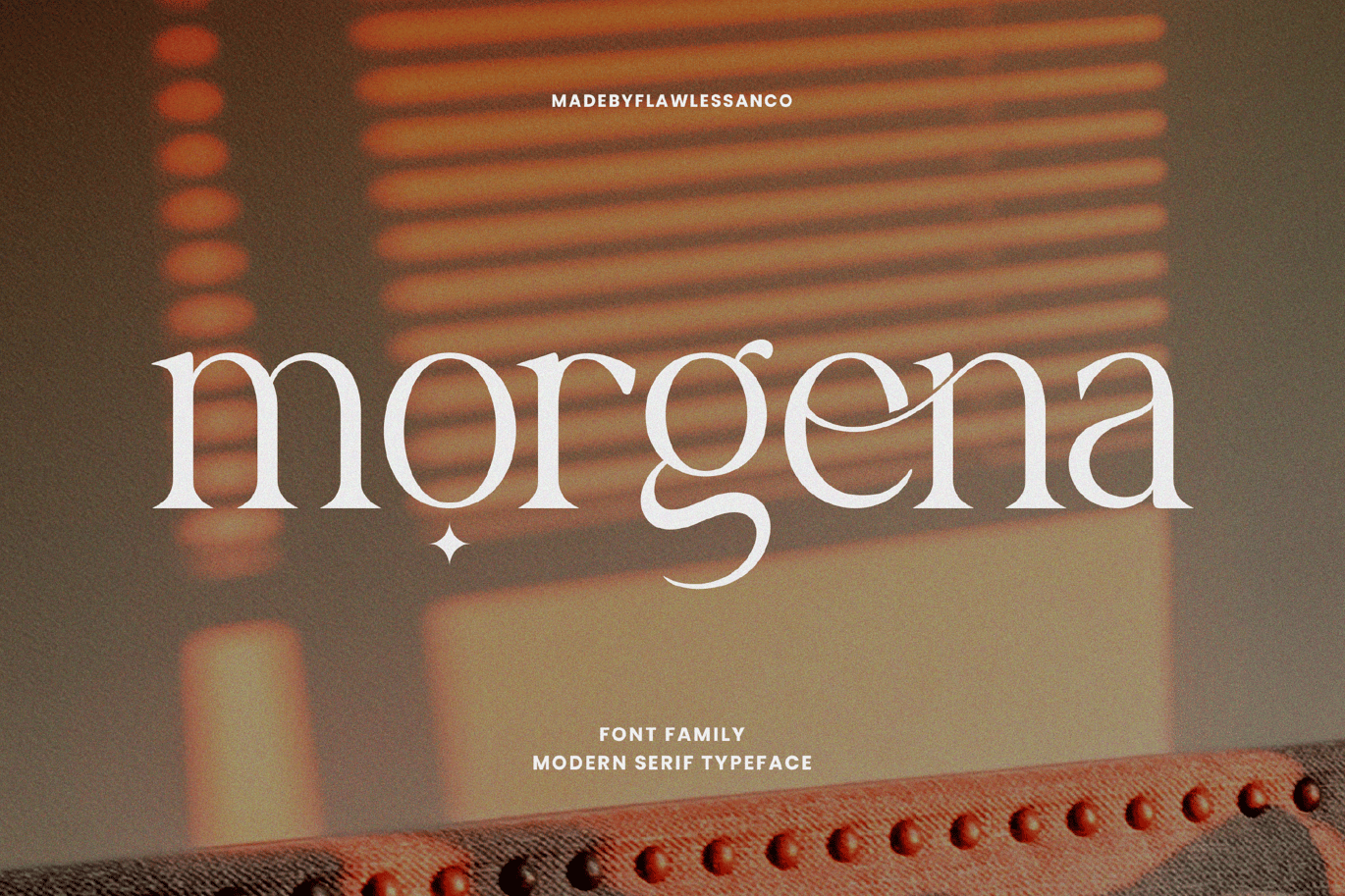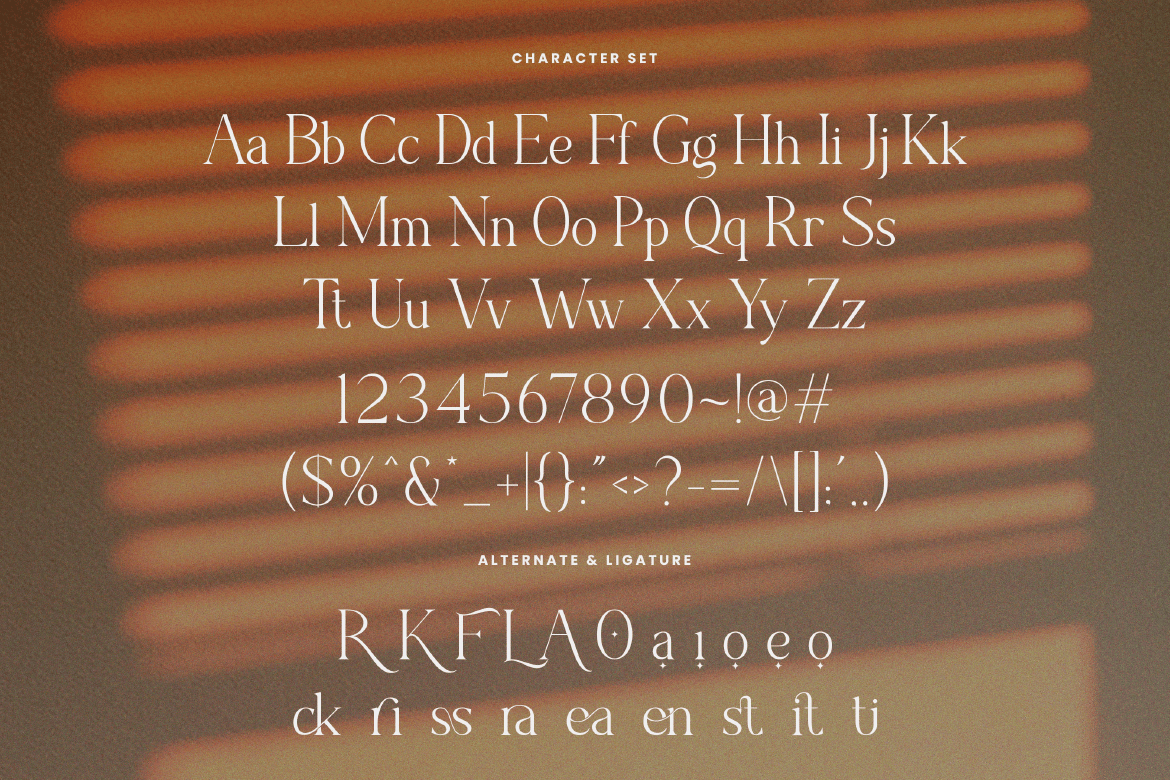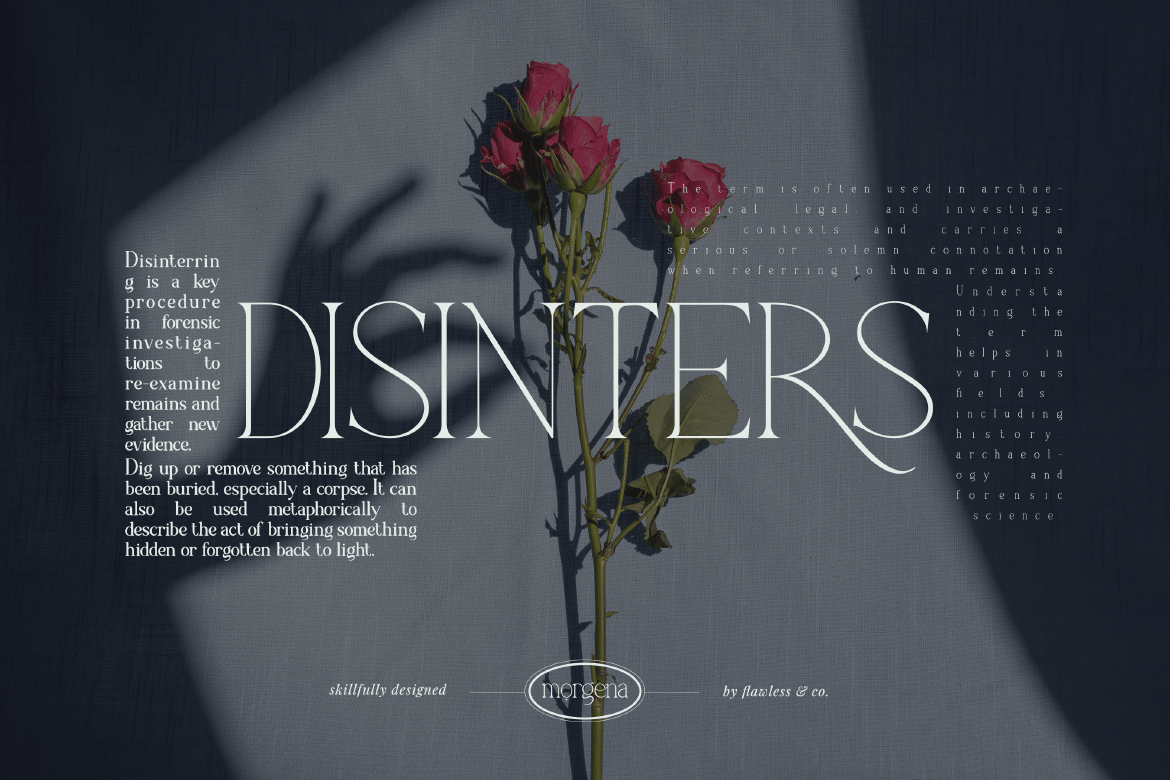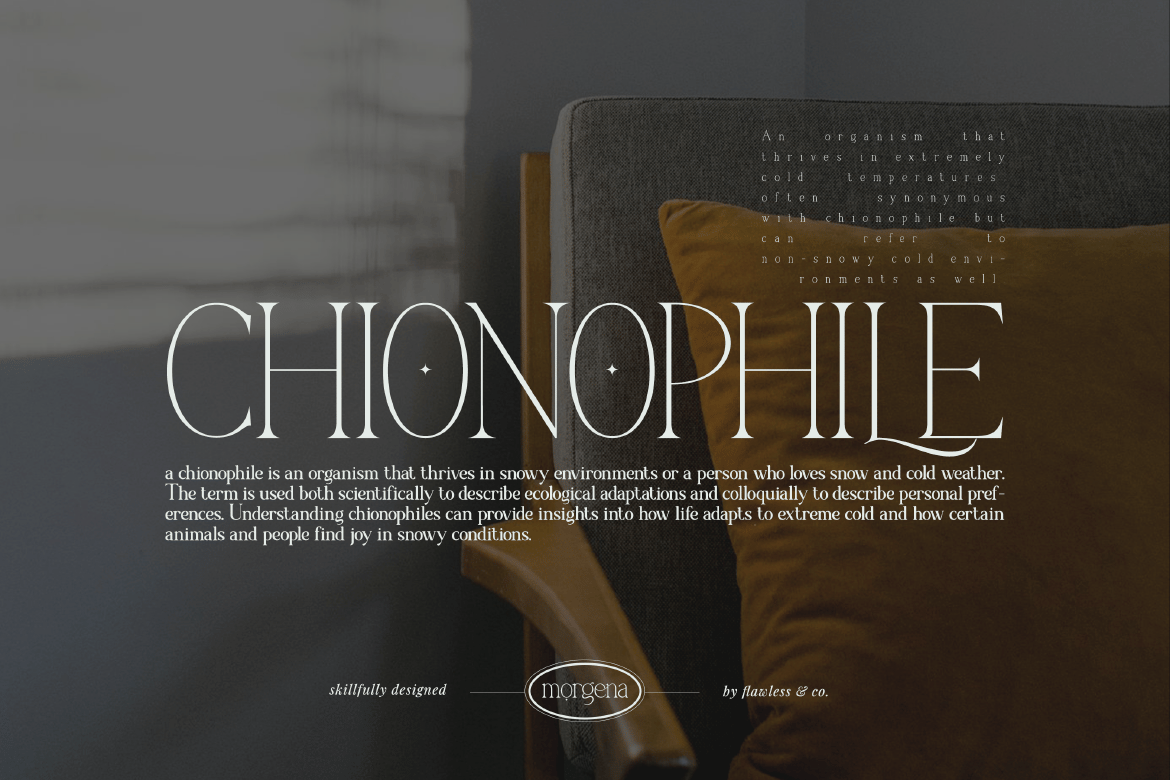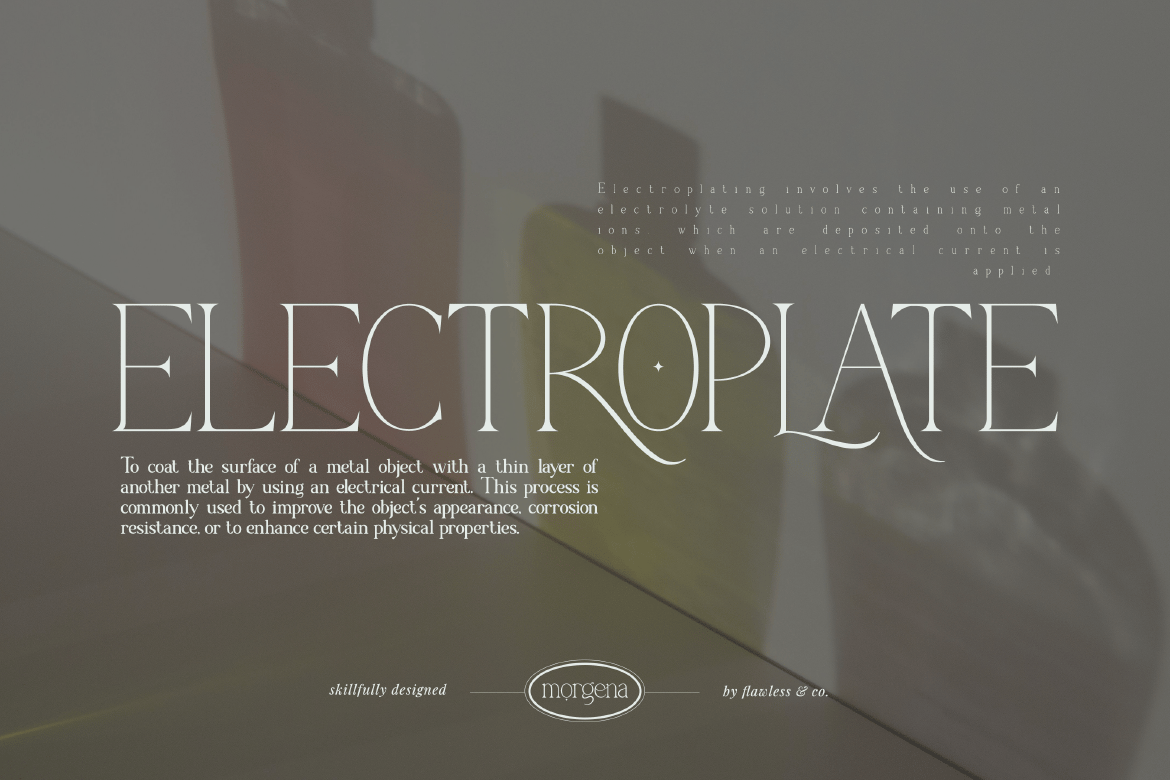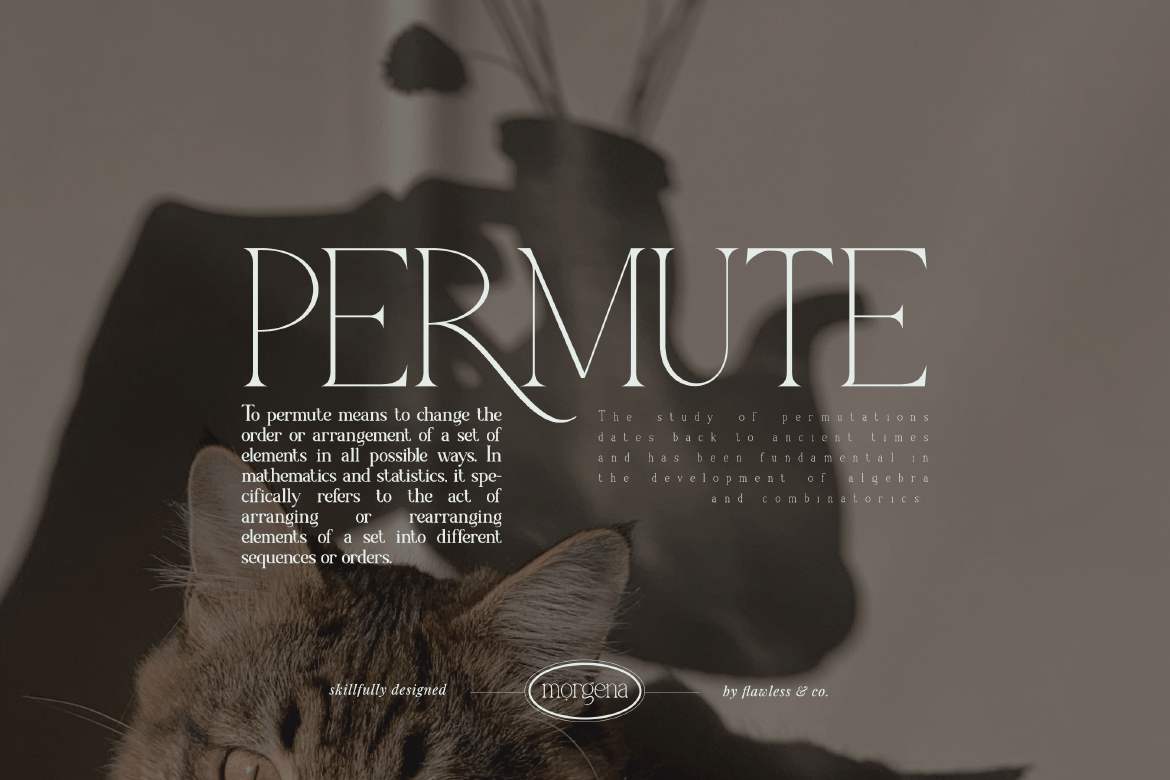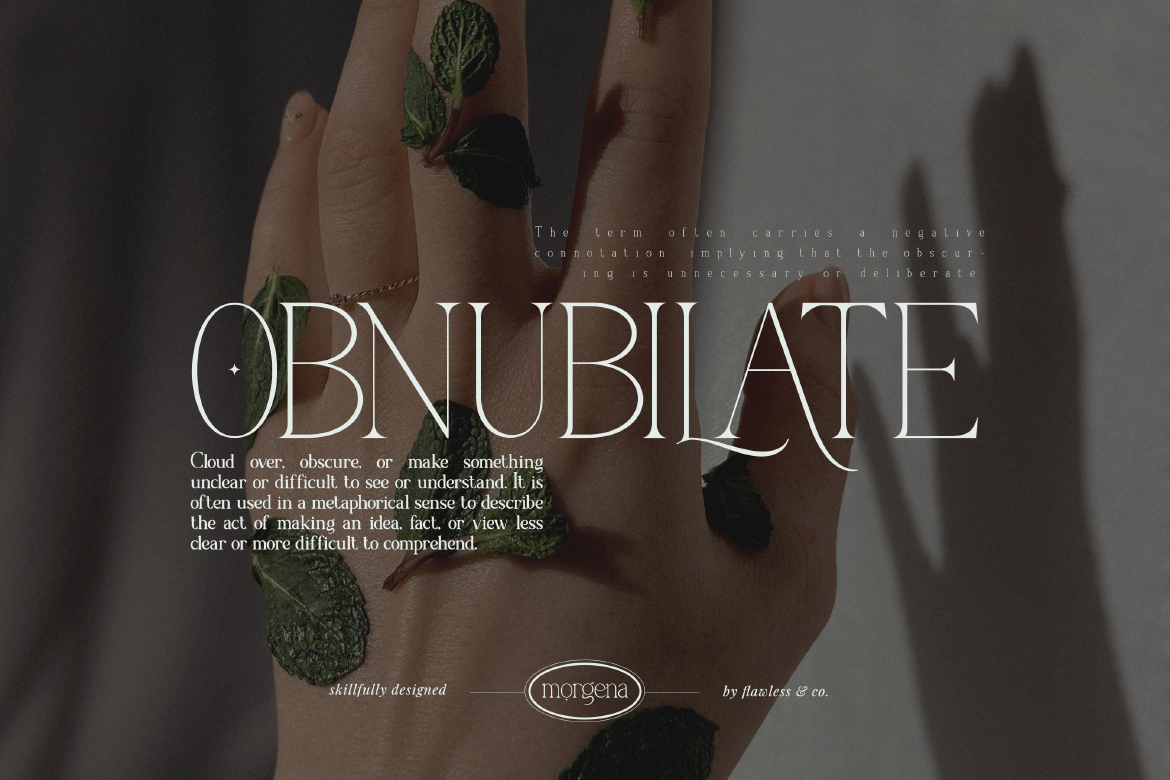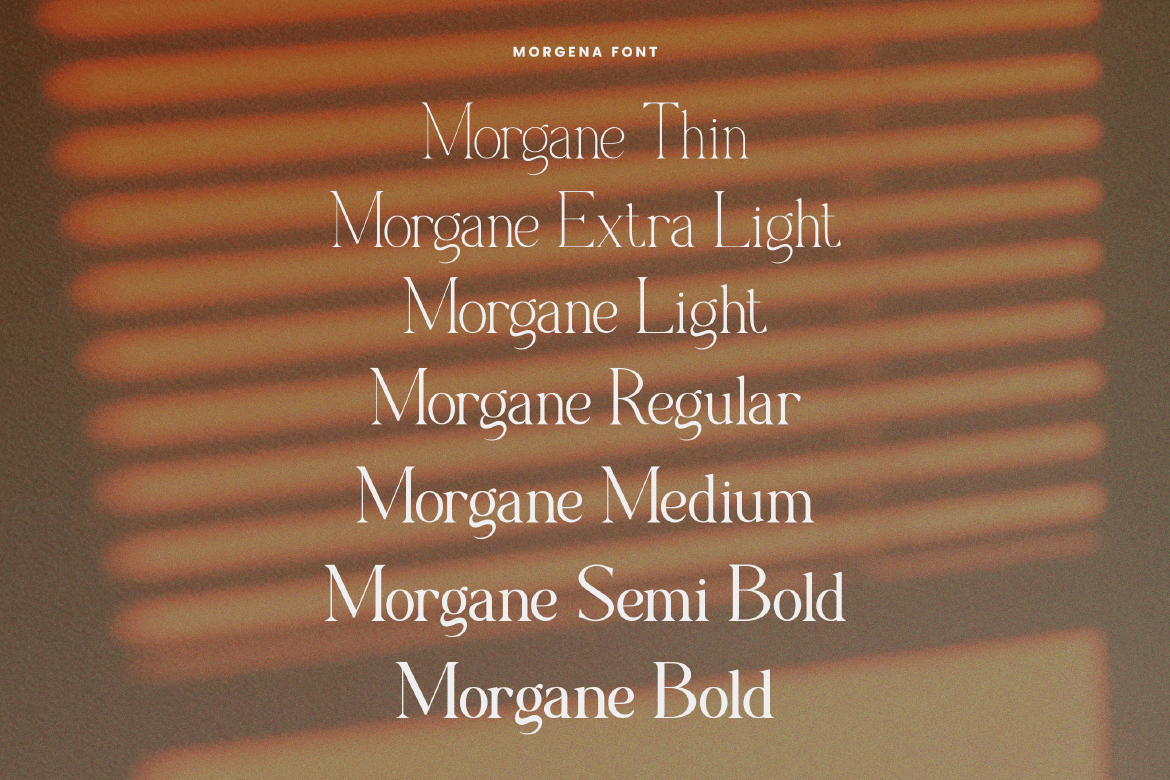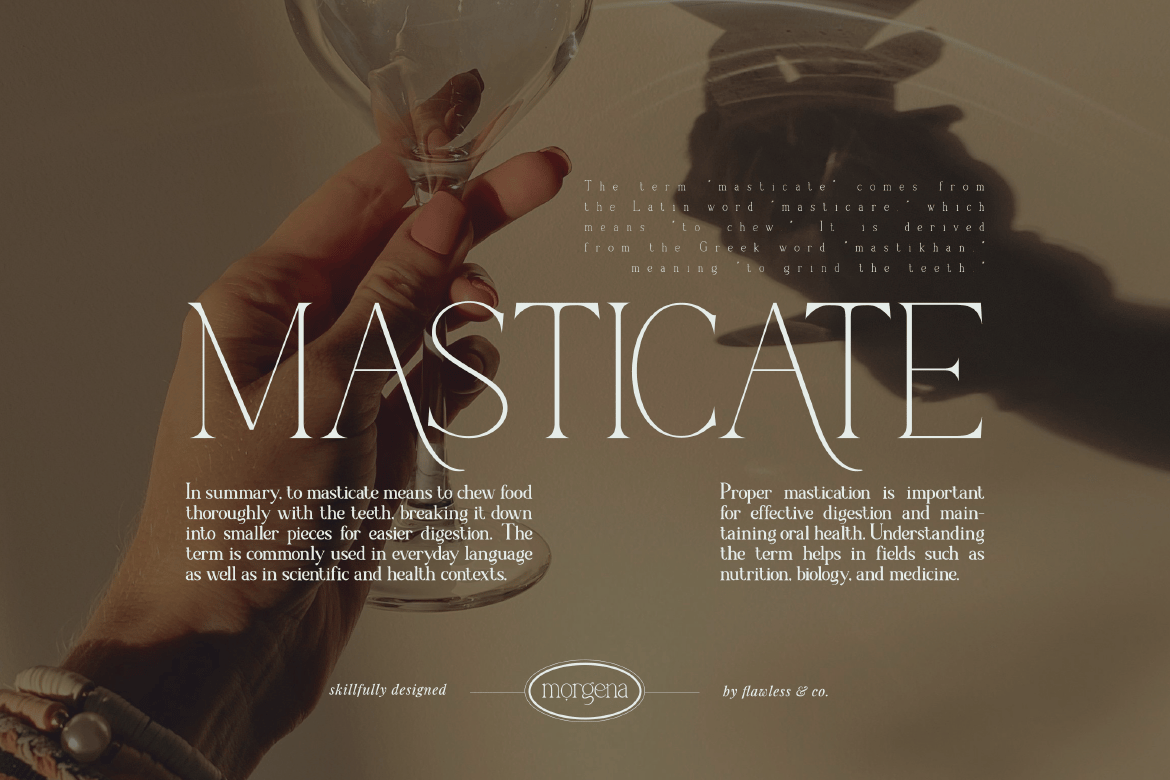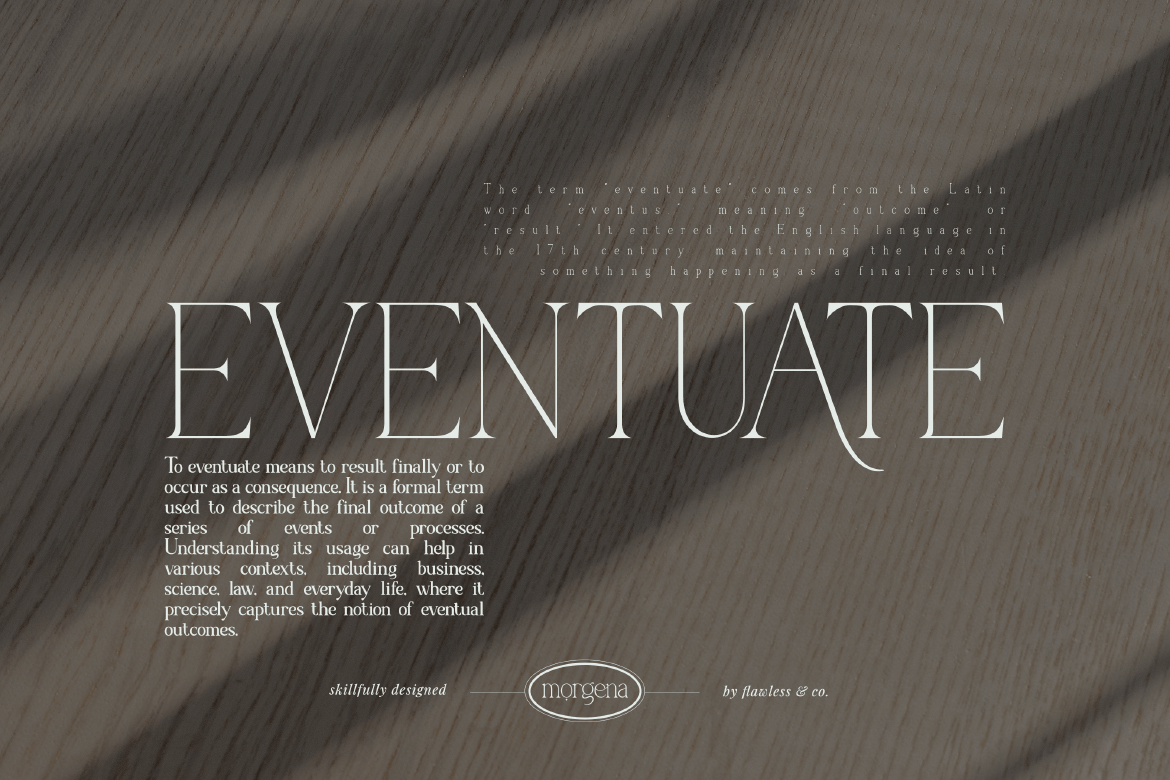
Morgena – Modern Serif Font
Introducing “Morgena Family Font”. Dive into the diverse world of typography with “Morgena”, a comprehensive typeface that goes beyond conventional limits. This font family is a symphony of styles, offering Thin, Extra Light, Light, Regular, Medium, Semi-Bold, and Bold variants, allowing you to craft designs that resonate with precision and personality.
Alternate Character